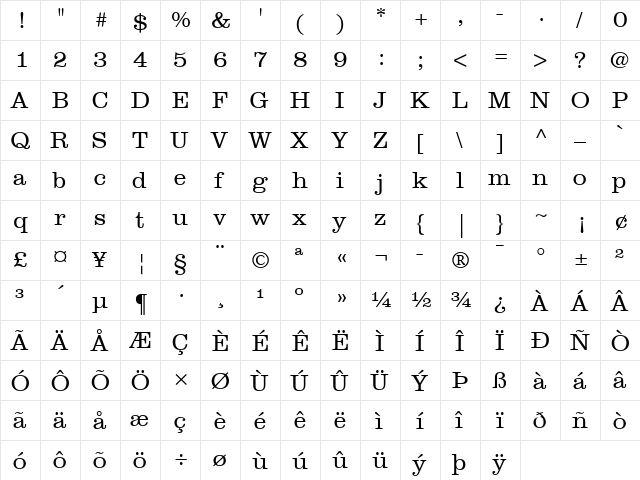
Clarendon LT Light Regular
Design Context for Clarendon LT Light Typeface
Clarendon LT Light combines the readability of serif typography with the visual weight of a slab construction, resulting in a typeface that feels both authoritative and approachable. The delicate stroke weight brings airiness and refinement to layouts.
Suited to magazines, political campaign materials, bold packaging, and any setting where authority matters.
Pro Tip: Use Clarendon LT Light for headlines and subheadings where its slab serifs can make an impression. It also holds up well in mid-size body copy thanks to its sturdy construction.